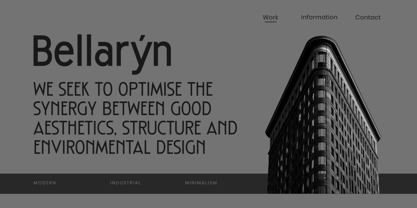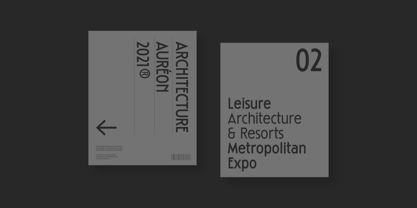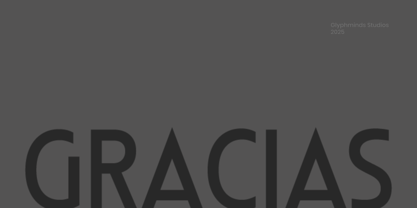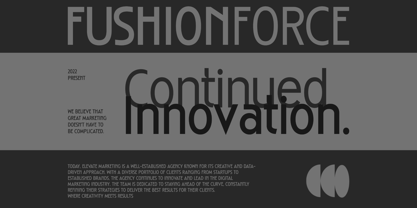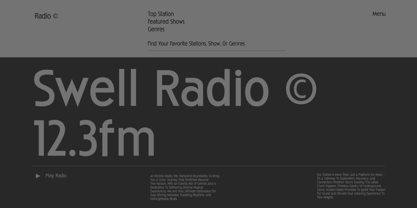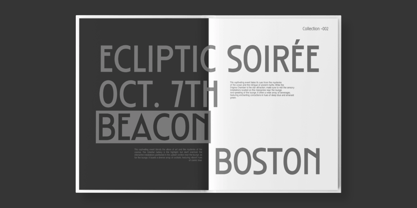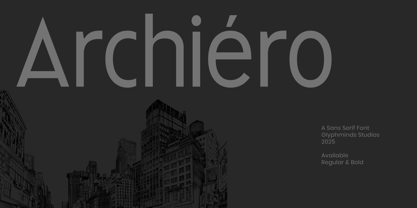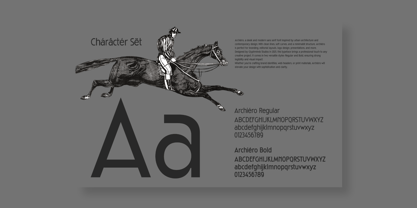
Archiero
by Glyphminds Studios
The Archiero Font Family was designed by Baliya Ibnu Bi Malkan and published by Glyphminds Studios. Archiero contains 2 styles and family package options. More about this family
Archiéro: Build Your Vision with Architectural Precision.
Introducing Archiéro, a stunningly clean and geometric sans-serif font forged with the principles of modern architecture in mind. Its balanced letterforms and structural integrity provide the perfect foundation for projects that demand clarity, sophistication, and a contemporary edge.
Whether you are crafting a powerful brand identity, designing a minimalist website, or laying out a professional portfolio, Archiéro delivers unparalleled legibility and style. With both Regular and Bold weights included, you have the versatility to create striking headlines and easy-to-read body text that command attention.
Elevate your designs from mere concepts to timeless masterpieces. Choose Archiéro and build a brand that lasts